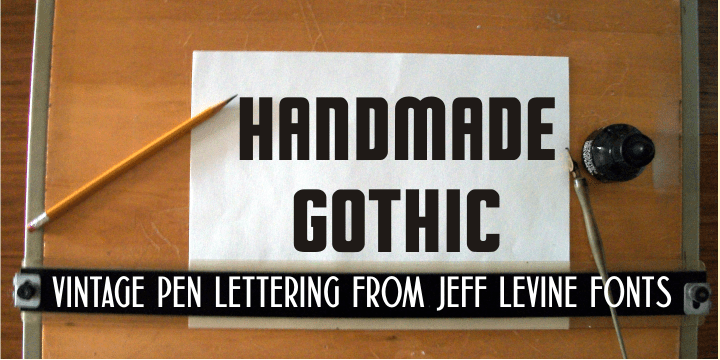
Handmade Gothic
Handmade Gothic JNL is one of many typefaces inspired by lettering samples in a 1941 Speedball® Lettering Pen instructional booklet. The bold, Deco-style sans is perfect for many attention getting headlines and titles.
Handmade Gothic includes 213 glyphs.